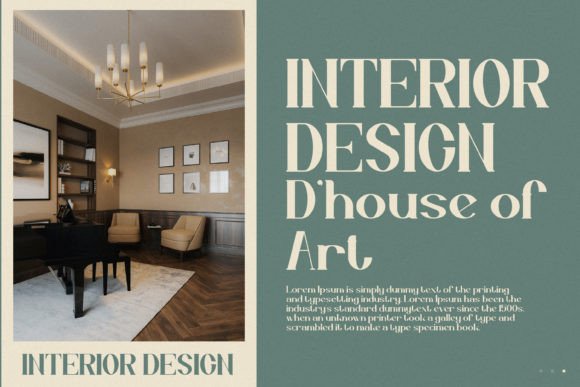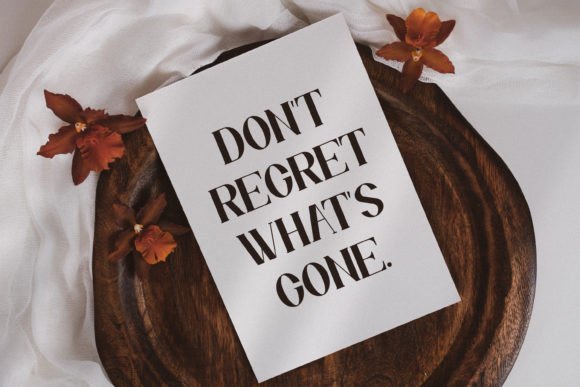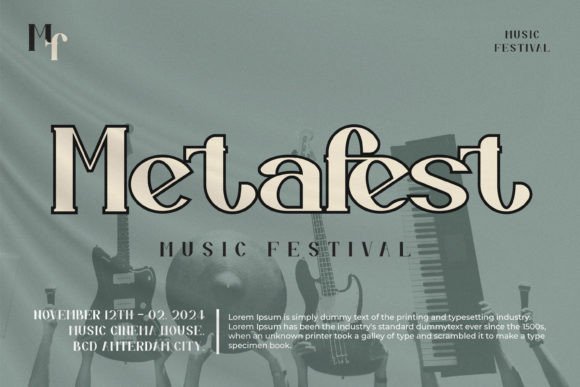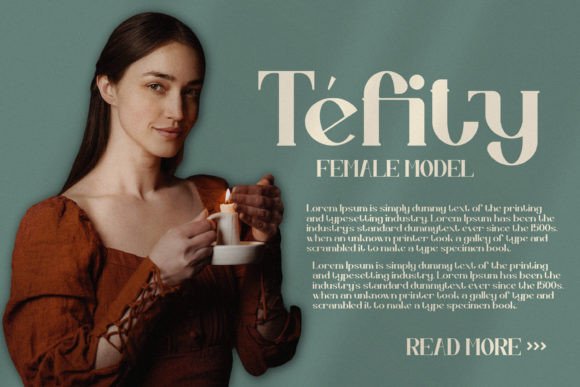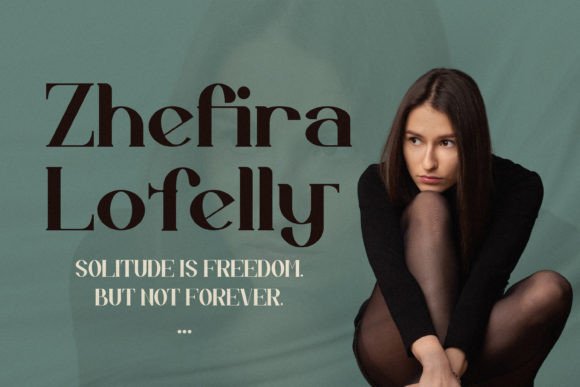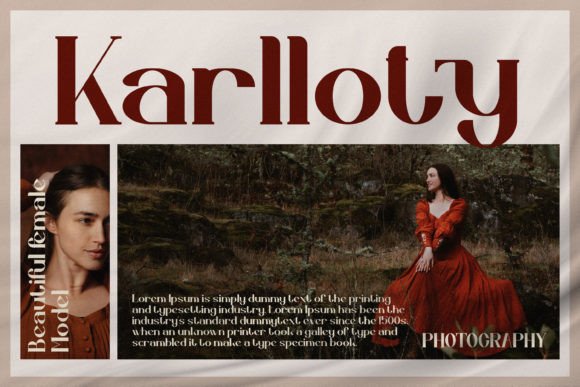
What is Floelly Font?
Floelly is a stylish serif font that seamlessly marries classic elegance with modern flair. Its meticulously crafted letterforms exude sophistication, bringing a touch of refinement to your designs. Ideal for projects that demand a timeless yet contemporary aesthetic, this font adds a distinctive charm to your typographic expressions.
- ✨ Elegant and refined letterforms that add a touch of sophistication to any design
- ✅ Highly legible, making it perfect for body text and headlines
- 💡 Extensive range of OpenType features, including stylistic alternates and glyphs
- 🎨 Versatile and works well for a variety of design projects, from luxury branding to wedding stationery
While Floelly Font is an excellent choice for many design projects, there are a few things to keep in mind: 🤔
- ⚠️ Limited availability of certain characters, such as ligatures and swashes
- 😐 May not be the best choice for very small text sizes or low-resolution images
The Backstory of Floelly Font
Floelly Font was designed by a team of typographers who wanted to create a font that would bring a touch of elegance and sophistication to any design project. Inspired by classic serif fonts, Floelly Font combines traditional elements with modern flair to create a truly unique and versatile font.
| Author | jeritype |
Q: What is Floelly Font?
A: Floelly Font is a stylish serif font that combines classic elegance with modern flair.
Q: What design projects is Floelly Font best suited for?
A: Floelly Font is ideal for projects that demand a timeless yet contemporary aesthetic, such as luxury branding, wedding stationery, and editorial design.
Q: Is Floelly Font easy to read?
A: Yes, Floelly Font is highly legible, making it perfect for body text and headlines.